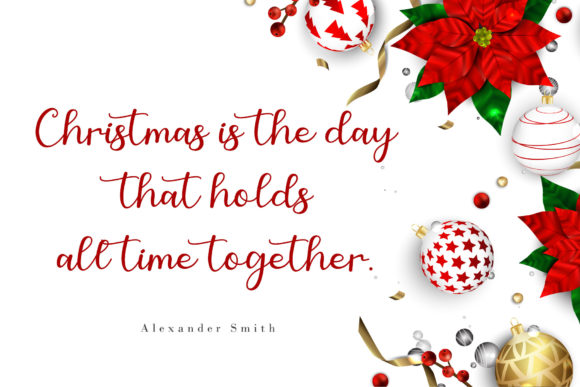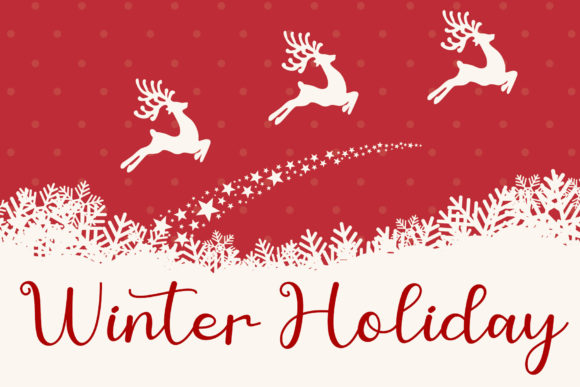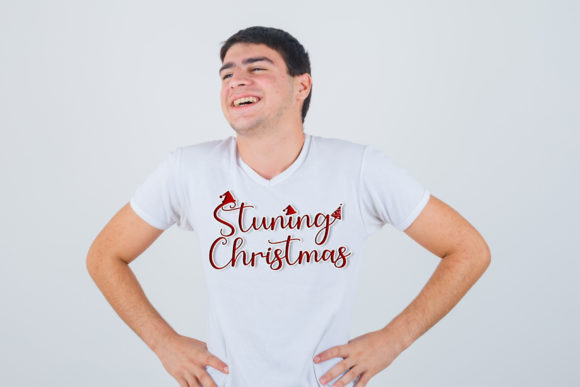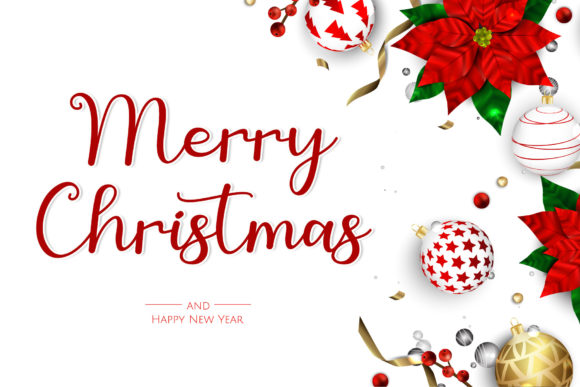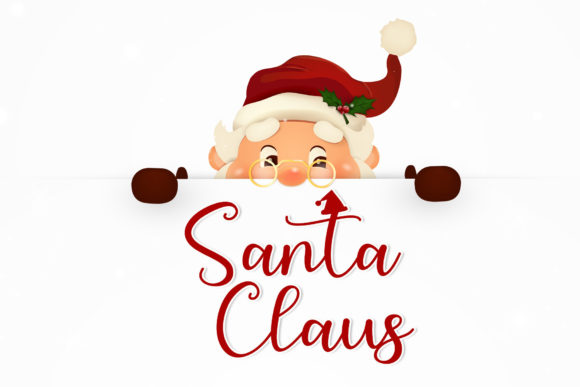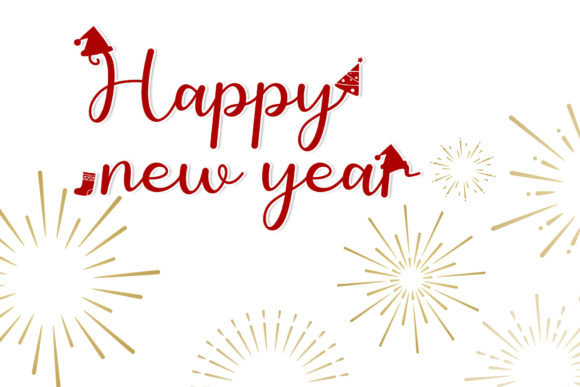
Introducing Christmas Saturday Font: Elevate Your Designs with Elegance and Style
Are you on the hunt for a font that embodies the perfect blend of elegance, style, and versatility? Look no further than the Christmas Saturday Font. This beautiful, well-balanced, and stylish script font is designed to take your fashion branding, editorial designs, and crafting projects to the next level. With its smooth curves and PUA encoding, Christmas Saturday offers an unparalleled level of creativity and ease of use.
What Makes Christmas Saturday Font Stand Out?
Christmas Saturday Font is not just another script font; it’s a design powerhouse that can transform your projects with its unique charm. Here are some key features that make it a must-have for designers and crafters:
- Smooth Curves: The font’s smooth, flowing curves give it a luxurious feel, making it perfect for high-end fashion branding, editorial designs, and any project that demands a touch of sophistication.
- PUA Encoding: Christmas Saturday is PUA (Private Use Area) encoded, which means you can easily access all the glyphs and swashes. This feature allows for greater flexibility and creativity in your designs, enabling you to experiment with different styles and effects.
- Well-Balanced and Stylish: The font strikes the perfect balance between style and readability. Its stylish appearance ensures that your designs stand out, while its clarity makes sure your message is conveyed effectively.
- Versatility: Whether you’re working on fashion branding, editorial designs, or crafting projects, Christmas Saturday Font adapts seamlessly. Its versatility makes it a valuable addition to any designer’s toolkit.
Applications of Christmas Saturday Font
The applications of Christmas Saturday Font are vast and varied. Here are some of the most popular uses:
- Fashion Branding: Use Christmas Saturday Font to create stunning logos, business cards, and marketing materials that exude luxury and style.
- Editorial Designs: Elevate your editorial projects, such as magazines, blogs, and newspapers, with the font’s elegant and sophisticated appearance.
- Crafting Projects: Add a touch of elegance to your crafting projects, including handmade cards, invitations, and DIY decorations.
- Digital Designs: Incorporate Christmas Saturday Font into your digital designs, such as social media graphics, website headers, and email newsletters, to create a cohesive and stylish visual identity.
Tips for Getting the Most Out of Christmas Saturday Font
To maximize the potential of Christmas Saturday Font, consider the following tips:
- Experiment with Swashes: Take advantage of the font’s PUA encoding to explore different swashes and glyphs. This can help you create unique and eye-catching designs.
- Mix and Match: Don’t be afraid to combine Christmas Saturday Font with other fonts to create a distinctive look. The font’s versatility makes it easy to pair with a variety of typefaces.
- Pay Attention to Kerning: Ensure that your text is well-spaced and visually appealing by adjusting the kerning. This is especially important for headlines and titles.
Christmas Saturday Font is a game-changer for designers and crafters looking to infuse their projects with elegance, style, and sophistication. Its smooth curves, PUA encoding, and versatility make it an indispensable tool for creating stunning fashion branding, editorial designs, and crafting projects. By incorporating Christmas Saturday Font into your design arsenal, you’ll be able to take your work to new heights and leave a lasting impression on your audience.